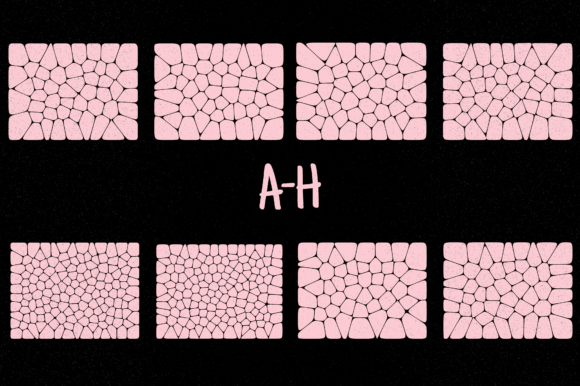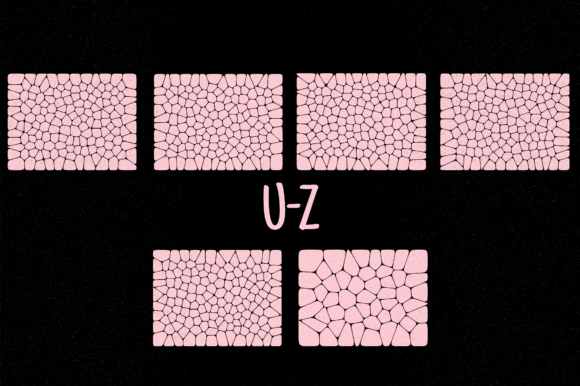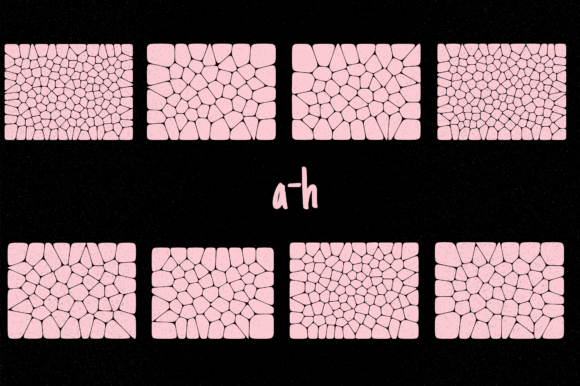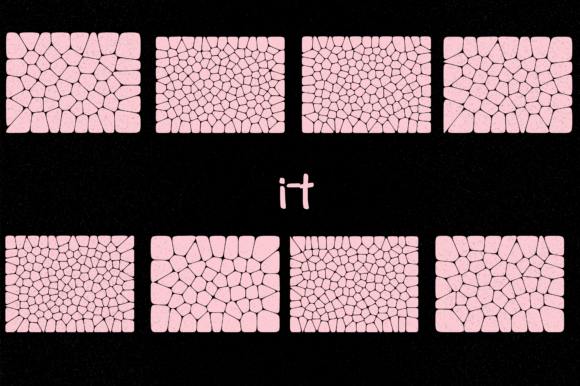
About Voronoi Diagram Font
Voronoi Diagram is an innovative and visually captivating dingbats font that offers a collection of 62 unique Voronoi geometric patterns. With its intricate and abstract designs, this font is perfect for adding a modern and sophisticated touch to your creative projects.
The Voronoi patterns generated by this font are based on the mathematical concept known as the Voronoi diagram. These patterns consist of irregular polygons that are formed by dividing a space into regions based on the proximity to a set of points or seeds.
By using Voronoi Diagram, you can easily incorporate these fascinating geometric patterns into your designs. Whether you’re working on digital graphics, prints, logos, posters, or any other creative project, this font allows you to add a unique and eye-catching element.
The versatility of Voronoi Diagram allows you to explore various applications. You can use these patterns as backgrounds, overlays, textures, or decorative elements. They can add depth, complexity, and visual interest to your designs, making them stand out from the crowd.
To access the different Voronoi patterns, simply type the corresponding characters on your keyboard. Each letter, number, or symbol is associated with a specific pattern, allowing you to easily experiment and combine them to achieve the desired effect.
With Voronoi Diagram, the possibilities are endless. You can create stunning visuals by layering or manipulating the patterns, playing with colors and transparency, and exploring different compositions. The intricate and organic nature of the Voronoi patterns adds a touch of complexity and elegance to your designs.
Whether you’re a graphic designer, artist, or simply someone looking to add a unique visual element to your projects, Voronoi Diagram provides a creative and innovative solution. Embrace the beauty of geometric patterns and let this font elevate your creations to a new level of sophistication and originality.